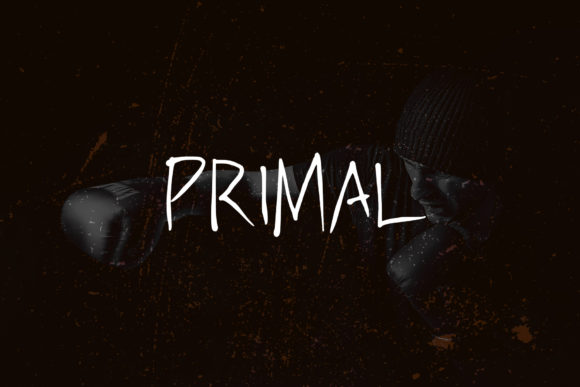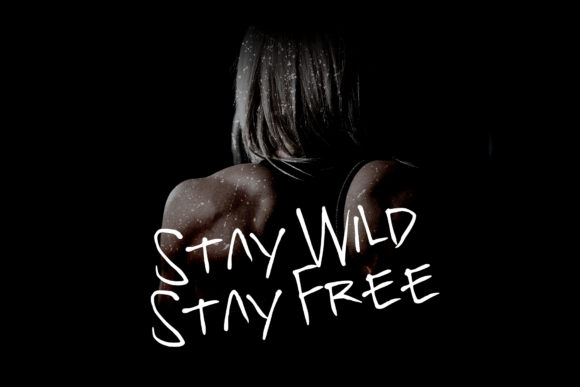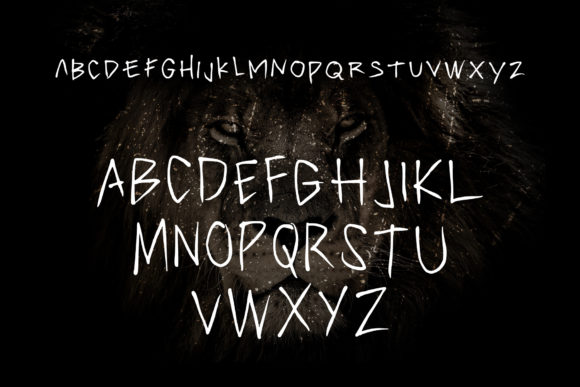
Primal Font
About Primal Font
Primal is a simple and unique handwritten font. Its natural style makes it incredibly fitting to a large pool of designs. The only limit is your imagination!